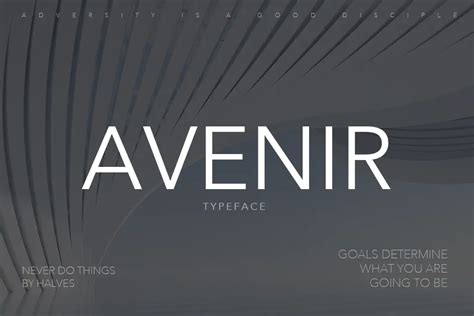
Avenir Web Font. Web avenir next pro is a new take on a classic face—it’s the result of a project whose goal was to take a beautifully designed sans and update it so that its technical standards surpass the status quo, leaving us with a. Web {time passes} downloadable web fonts for the avenir black face now seem to be pretty available for free.
Web about avenir font family. In drawing the avenir® typeface, adrian frutiger looked to both the past and the future for inspiration. This typeface is also available within. Web avenir next pro is a new take on a classic face—it’s the result of a project whose goal was to take a beautifully designed sans and update it so that its technical standards surpass the status quo, leaving us with a. Web {time passes} downloadable web fonts for the avenir black face now seem to be pretty available for free. View sample text, character map, user rating and review for avenir regular. Do note that doing thin incurs a download penalty in time and bandwidth. Web download avenir regular for free. Products that supply this font. Web license microsoft fonts for enterprises, web developers, for hardware & software redistribution or server installations; Web about avenir font family.